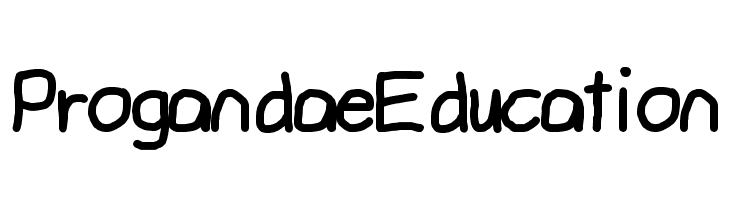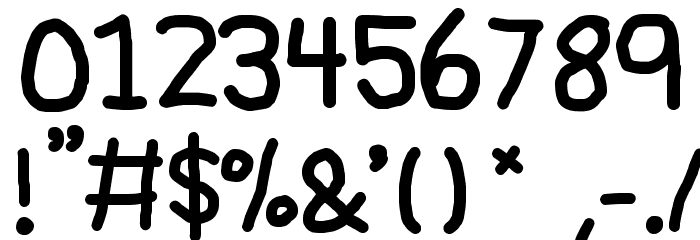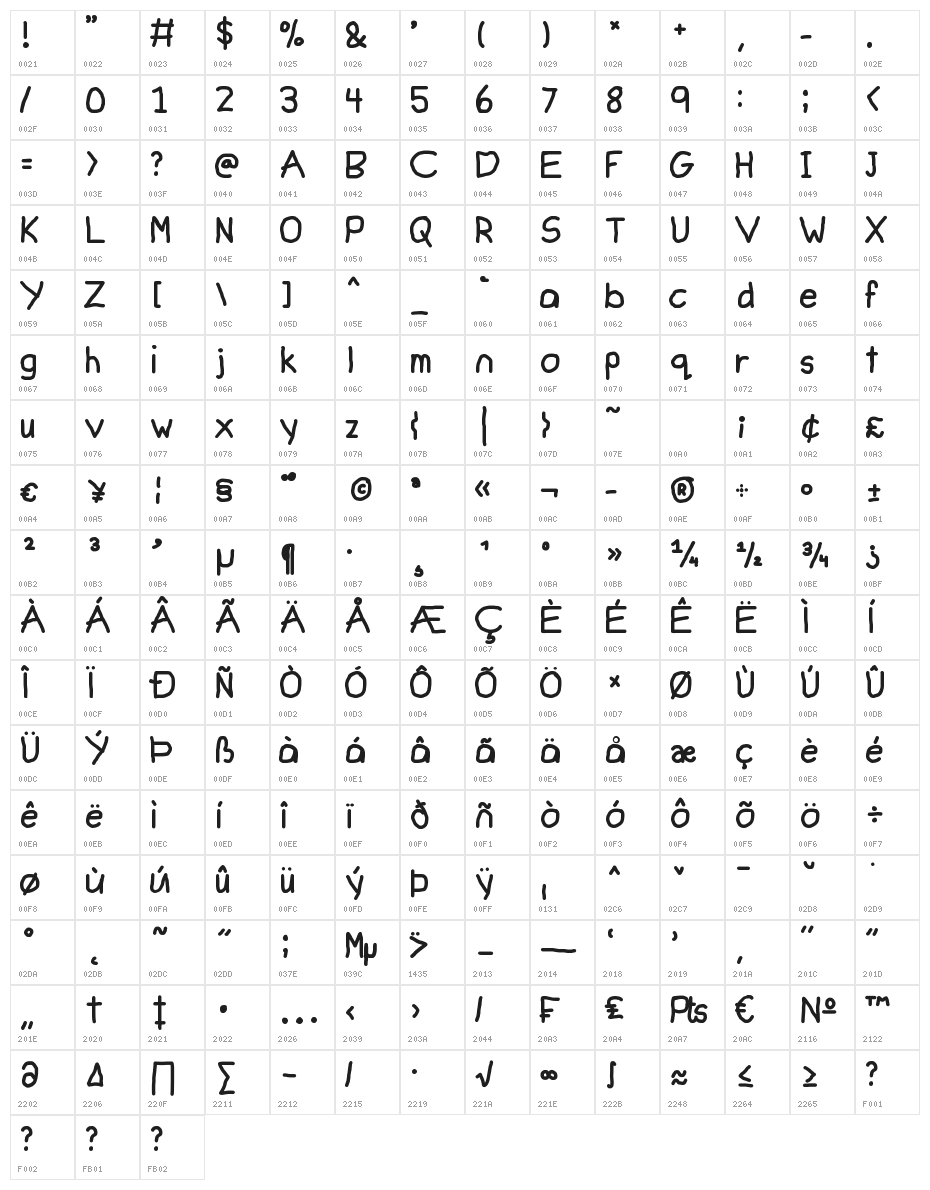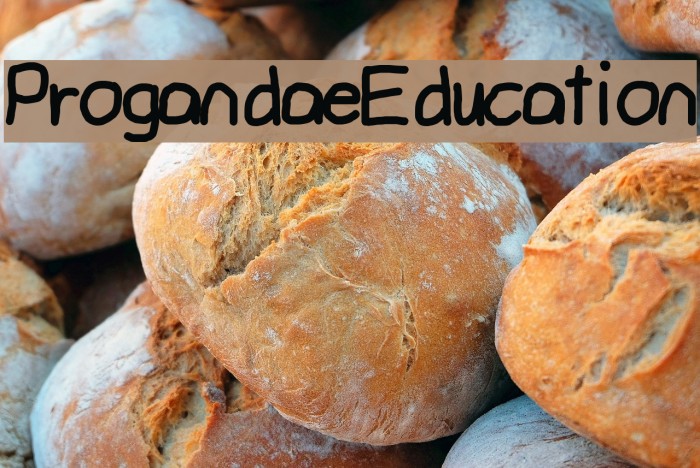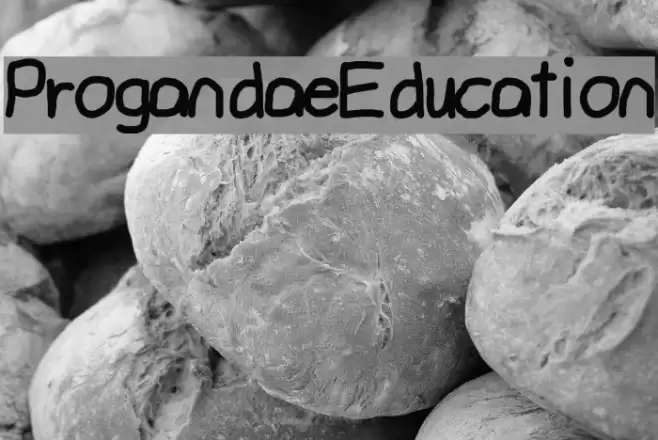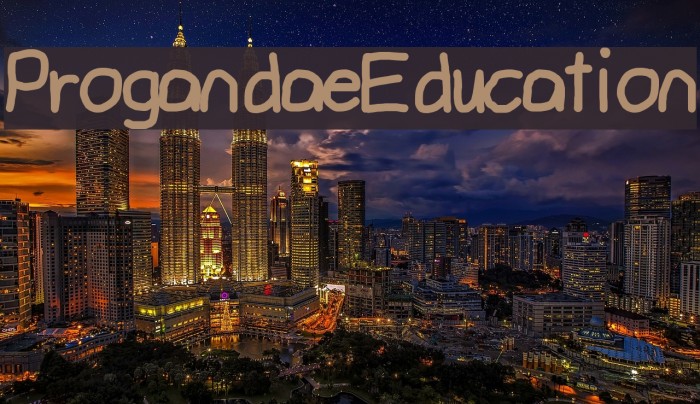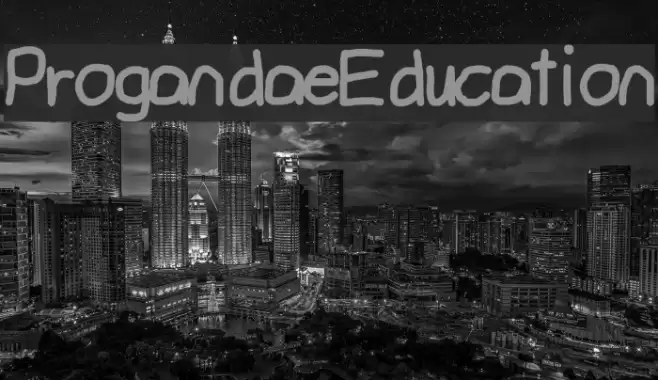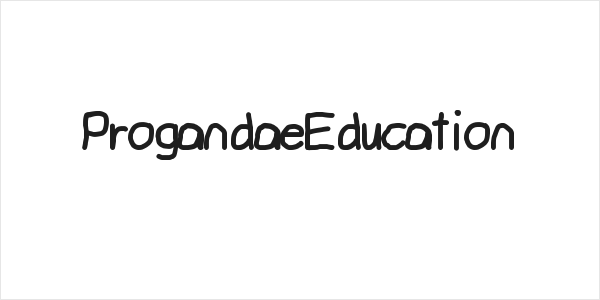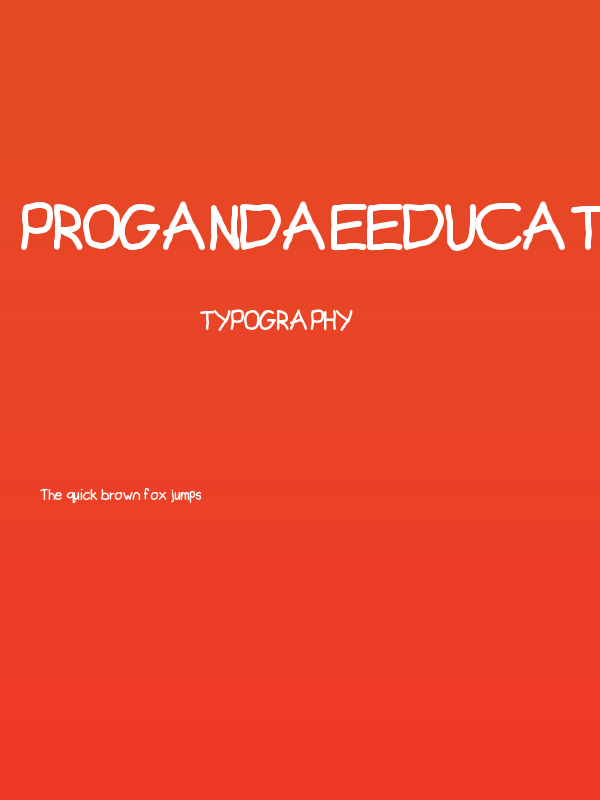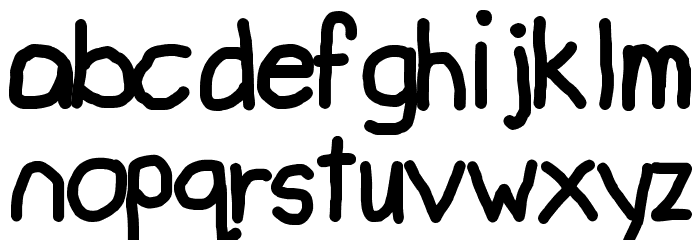
ProgandaeEducation Font
ProgandaeEducation Description
This font features a playful and informal handwritten style, characterized by its rounded and slightly irregular letterforms. The uppercase and lowercase letters maintain a consistent flow, giving the text a casual and approachable appearance. The numbers and special characters follow the same style, ensuring uniformity across all glyphs. The strokes are moderately thick, providing a bold presence without overwhelming the reader. This font is ideal for projects that require a personal touch, such as children's books, casual invitations, or creative branding. Its unique style makes it stand out, while still being legible and versatile.
| Proposed Projects | Children's books, casual invitations, creative branding, personal projects. |